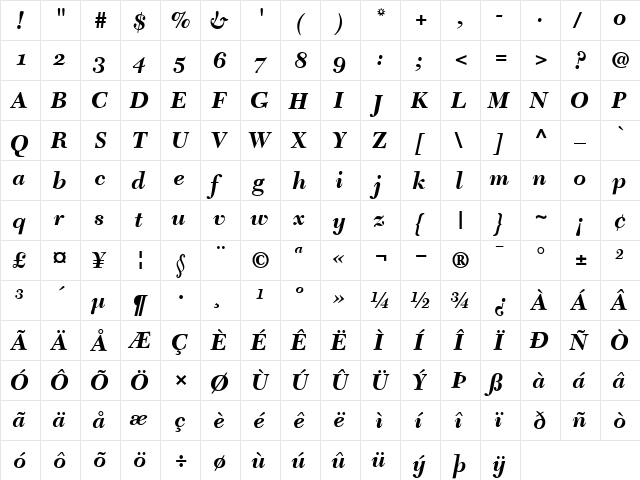
NewCaledoniaOldStyleFigures BoldItalic Font Preview
Design Context for NewCaledoniaOldStyleFigures Typeface
NewCaledoniaOldStyleFigures carries the refined structure of traditional serif typography, with bracketed terminals and considered proportions that communicate credibility and craft. The dynamic lean of this cut emphasises speed and emphasis in any layout. The heavy weight commands attention and anchors typographic hierarchies.
Pro Tip: Use NewCaledoniaOldStyleFigures for editorial body copy and considered headline work. Pair with a neutral sans for UI elements or captions to create a classic hierarchy.